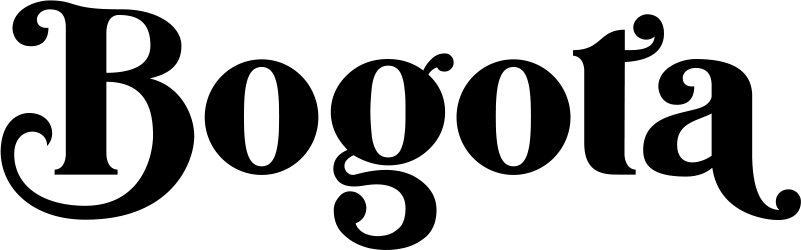
Bogota Font
Bogota is a serif font that doesn’t contain numbers. In the design of this font, a little creativity is combined with the formal form of serif fonts. This is exactly why Bogota looks different and fresher than its other collaborator fonts. Bogota conveys a sense of credibility and trust to the audience and is widely used in the design of special logos and posters.
Say hello to Bogota font. The Bogota font is a modern and clean display (Serif) font. Create from our
talented font designer. The design of typeface will make your design more beautiful and inspiring. This
font will suitable for any project, like branding, print template, logo and etc. The font also available in a